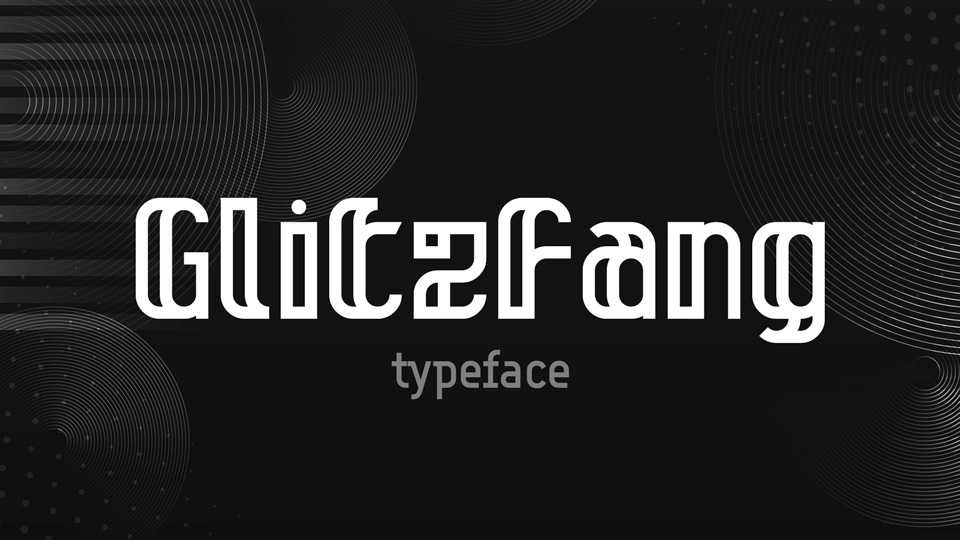
Download Glitzfang font, a creative typeface that combines decolike asymmetry with a double line concept. This results in a look that is at times architectural and at other times almost like loopy cursive.